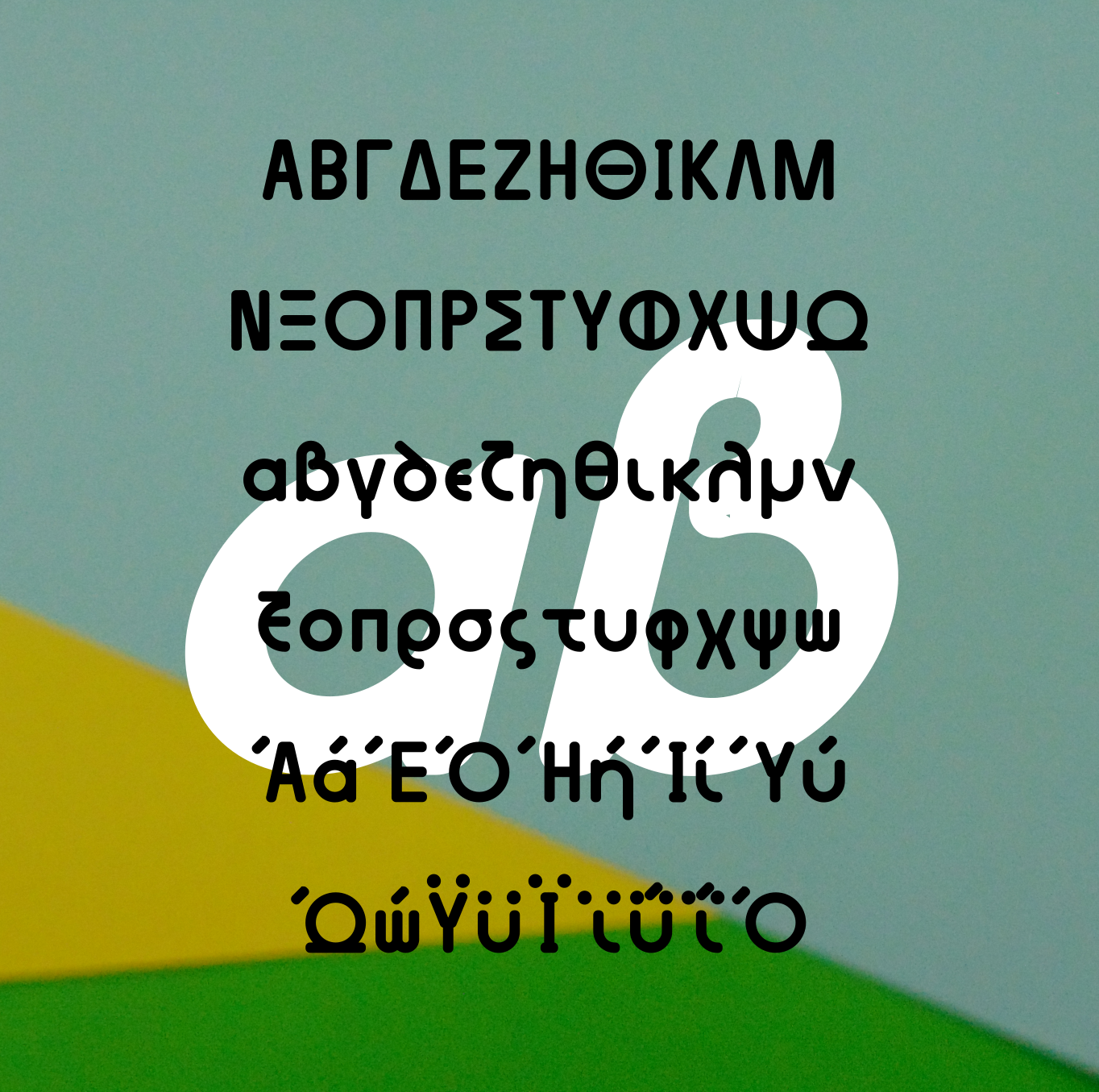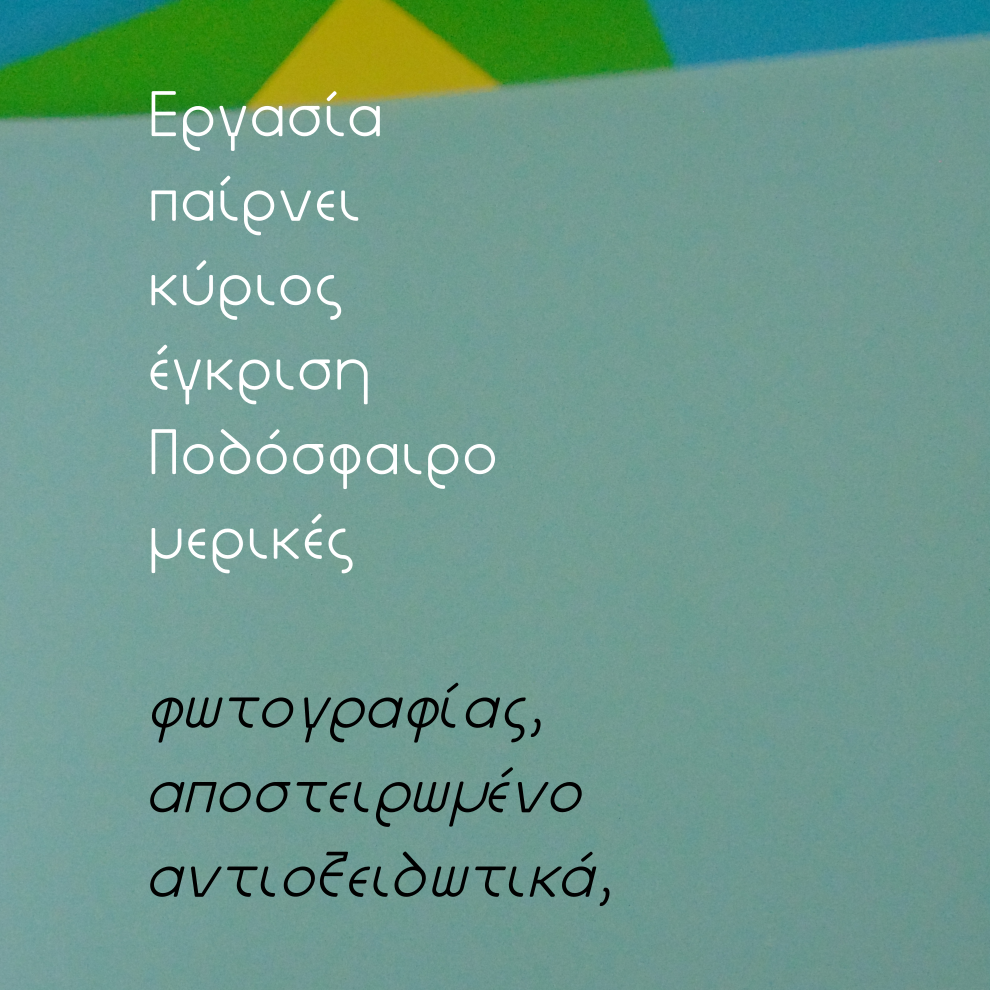
PVF_CarouselR is a Modern Rounded Sans-Serif based on PVF_Carousel type design. It features Greek & basic Latin with numbers and symbols including Light, Medium, and Bold emphasis with their Italics.